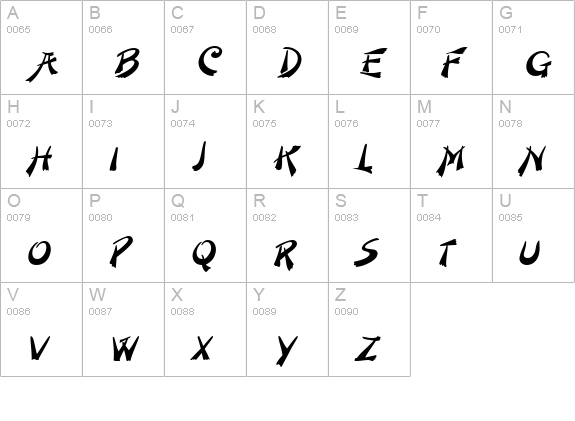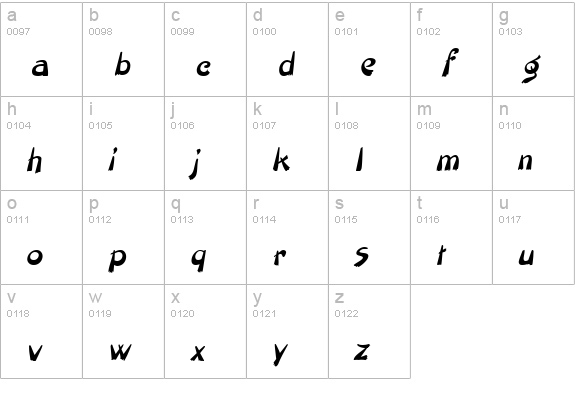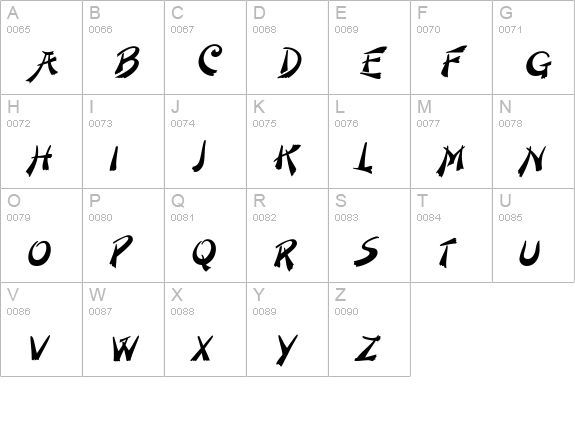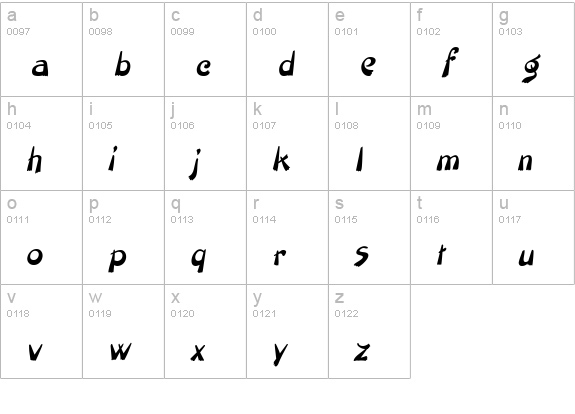
Painter Italic Font Details
Painter Italic is a distinctive, italic variant in the Painter typeface family \xE2\x80\x94 well suited to design and typography projects.
The Painter Italic font is a stunning typeface that exudes elegance and creativity. Its sleek and fluid strokes add a touch of sophistication to any project, making it perfect for both professional and personal use. With its unique design and artistic flair, this font effortlessly captures the beauty and grace of hand-drawn lettering. One of the best features of the Painter Italic font is that it is completely free to use. Whether you are a graphic designer looking to enhance your designs or a DIY enthusiast creating beautiful crafts, this font is the perfect tool to bring your creative visions to life. And the best part? It is readily available for free download at FontsMarket.com, a reliable source for high-quality fonts. With its versatile style, the Painter Italic font can be used for a variety of projects. From branding and logo designs to invitations and greeting cards, this font adds a touch of sophistication and uniqueness to any text. Its distinctive slanted letters lend a sense of movement and dynamism, making it perfect for conveying a sense of energy and excitement. The attention to detail in the Painter Italic font is truly remarkable. Each letter is carefully crafted with precision and finesse, creating a visually appealing and harmonious typeface. The slender and graceful curves of the letters give the font a timeless and classic quality, making it suitable for both modern and vintage-inspired designs. Whether you are a professional designer or a hobbyist, the Painter Italic font is a must-have in your font collection. Its versatility, elegance, and free availability make it a valuable asset for any design project. So why wait? Head over to FontsMarket.com and download the Painter Italic font for free now, and let your creativity soar to new heights.